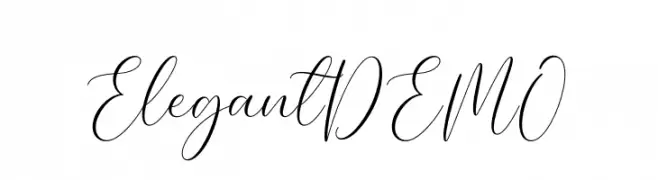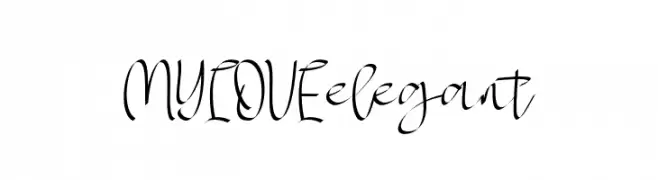
A cursive font with elegant, flowing letters and sophisticated flourishes.
A refined and elegant cursive script font with flowing, sophisticated characters.
An elegant, cursive font with elongated, flowing characters.
A graceful, cursive font with elegant, flowing lines.
An elegant, cursive font with flowing, sophisticated characters.
An elegant script font with flowing lines and graceful curves, ideal for sophisticated designs.
A graceful, cursive script font with elegant, flowing lines.
A sophisticated cursive font with elegant, flowing characters.
A cursive, elegant font with a flowing, handwritten style.